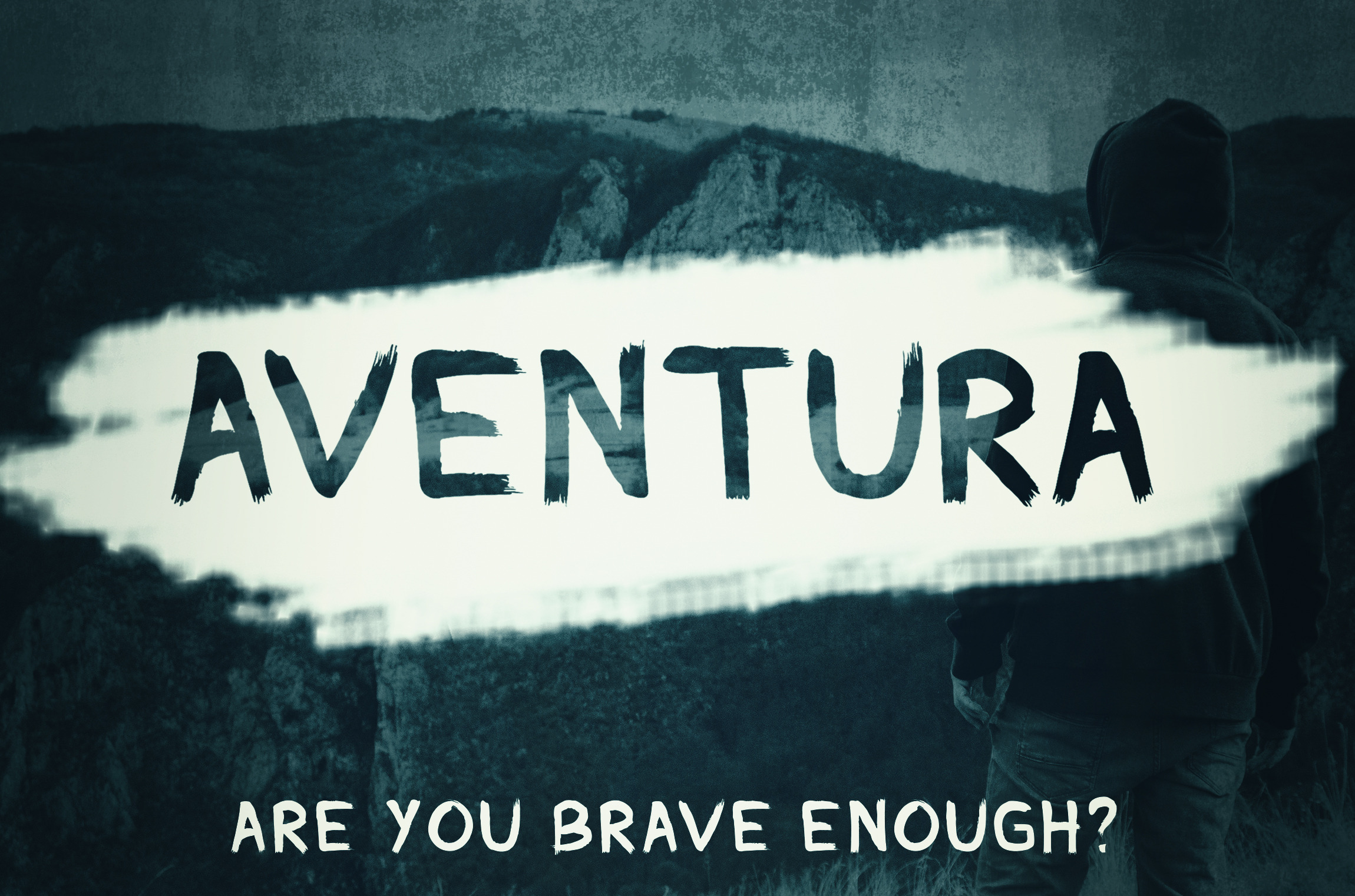
Aventura - Handmade Font
Aventura is a hand made font targeting travelers who are not afraid to venture in to the unknown. The font is created to be used for Titles, Logos, Headers, Prints, Quotes and many other possibilities.